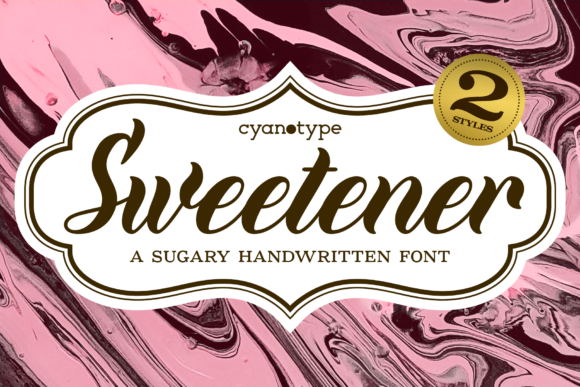
Welcome to the realm of Sweetener, an enchantingly exquisite script font family crafted by the visionary hands of cyanotype. With its delicate curves and balanced strokes, Sweetener Font promises to enthrall and elevate any design, transforming mere words into alluring masterpieces.
Meet the font that will ignite your creativity and captivate your audience – Sweetener. Inspired by the world of desserts and candies, Sweetener's sugary and modern flavor will unleash a symphony of visual delights. Taste the sensation of Sweetener in your design endeavors, and watch as your projects bloom with a new vibrancy and allure.
Step into the world of Sweetener and discover the beauty of perfectly choreographed lines. Experience the harmony of meticulously crafted characters, each embodying a unique personality, yet seamlessly blending together to create a cohesive and captivating visual experience. From branding and titling to packaging, stationery, bullet journaling, cards, magazine layouts, and any project seeking a touch of sweetness, Sweetener stands poised to add a sprinkle of magic.
Indulge in the wonders of Sweetener's adaptability, seamlessly complementing any design theme or style. Whether you seek a playful and vibrant touch or a touch of elegance and sophistication, Sweetener artfully blends the boundaries of aesthetics, harmonizing perfectly with a myriad of design concepts. Unleash your imagination and watch as Sweetener transforms your visions into tangible works of art.
In the realm of video titles, Sweetener emerges as the reigning champion, captivating viewers with its magnetic charm and alluring aura. Allow Sweetener to heighten the anticipation for your video content, drawing viewers into the captivating realm of your storytelling. Experience the power of Sweetener as it commands attention, leaving an indelible mark on the minds of your audience.